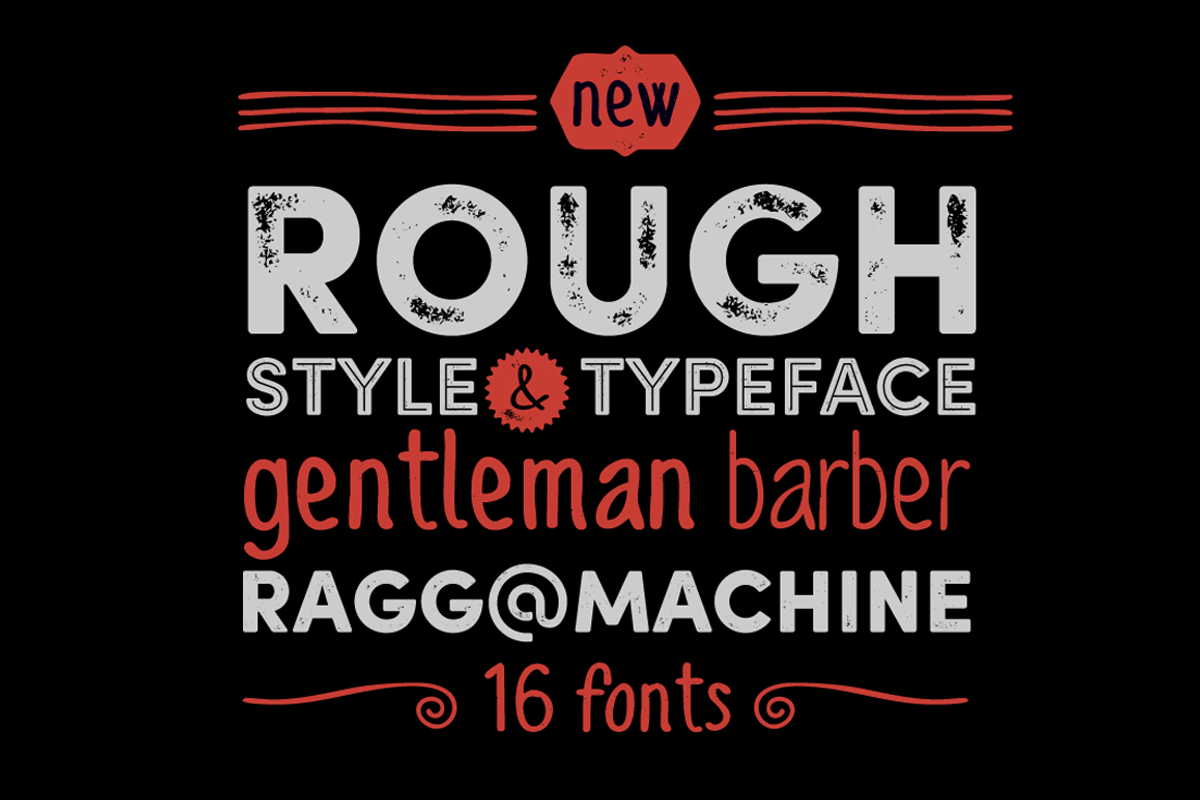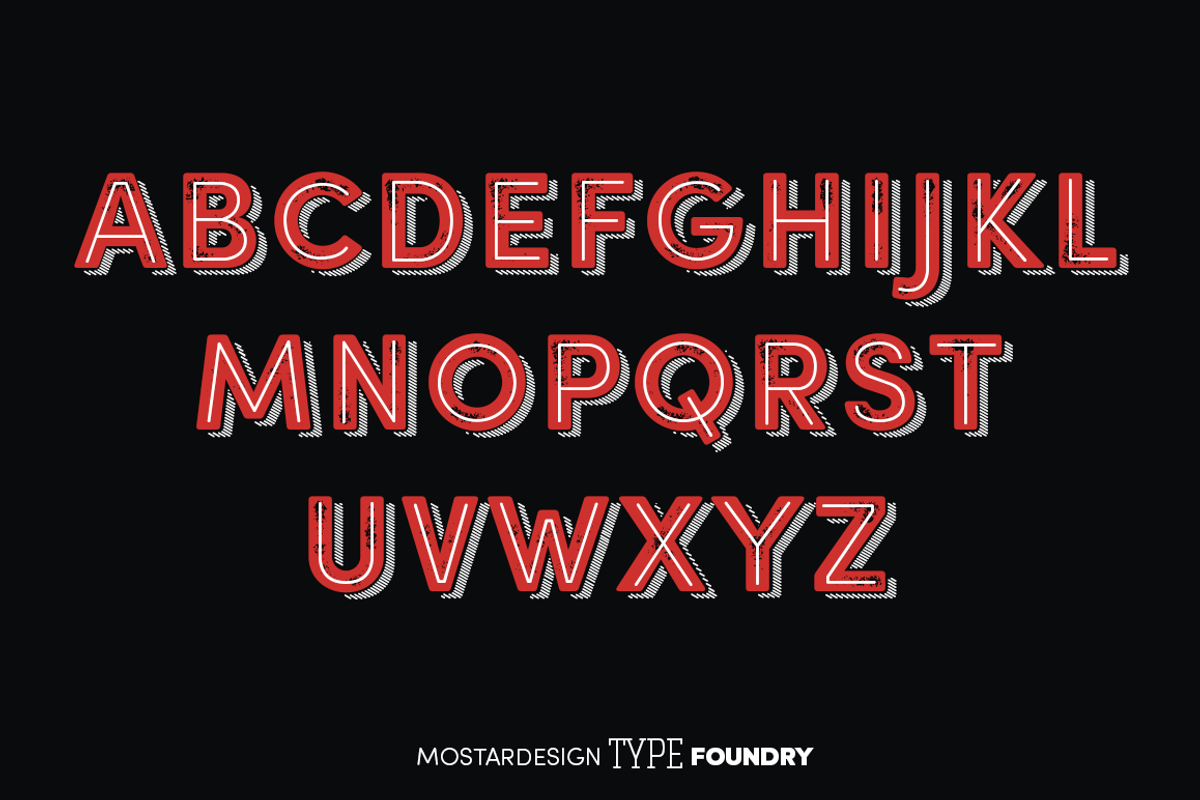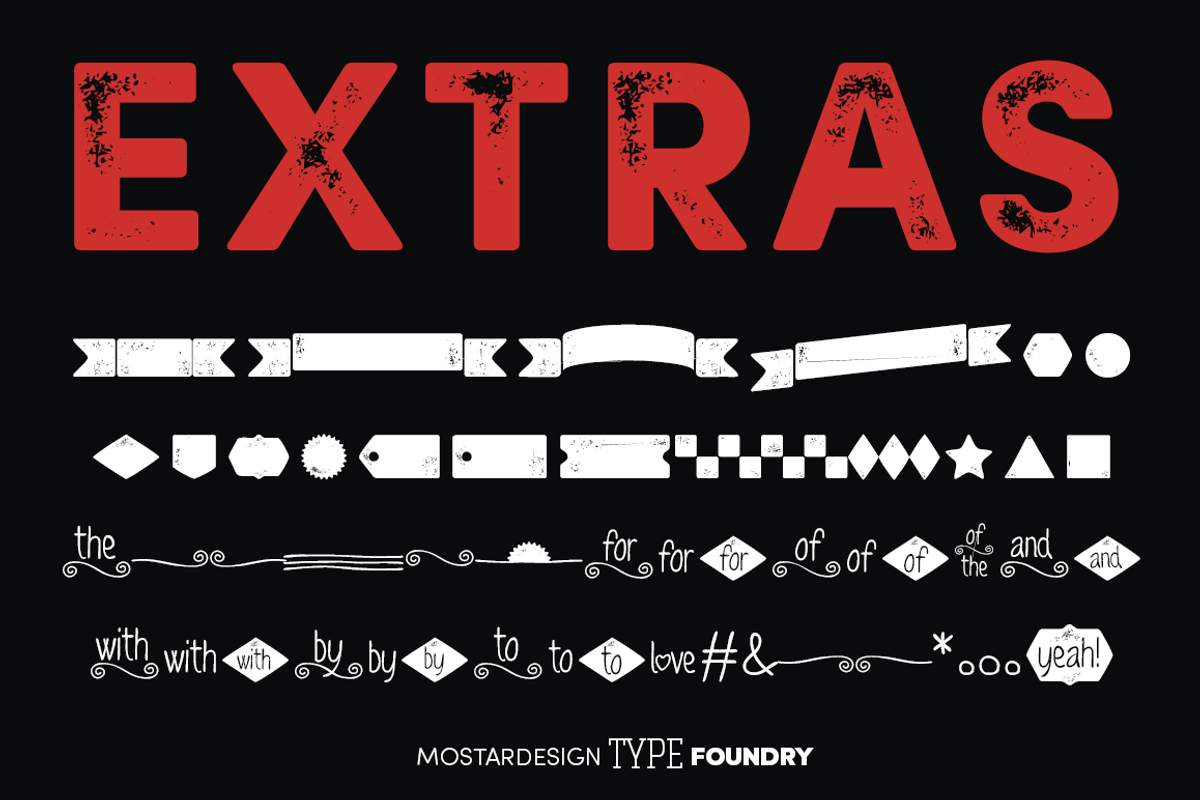
Sofia Rough Font Family
Sofia Rough Font Family by Mostardesign Type Foundry is a font selected for branding, posters, packaging, typography.
- Sofia Rough contains sixteen fonts and two eroded sub families.
- Sofia Rough contains also more than 80 extra graphics such as catchwords, ornaments, emblems, decorative lines, stars and many more.
- Sofia Rough contains sixteen fonts and two eroded sub families.
- Sofia Rough contains also more than 80 extra graphics such as catchwords, ornaments, emblems, decorative lines, stars and many more.
Why Sofia Rough Font Family is worth a look
Sofia Rough Font Family by Mostardesign Type Foundry fits naturally into Branding, posters, packaging, typography.